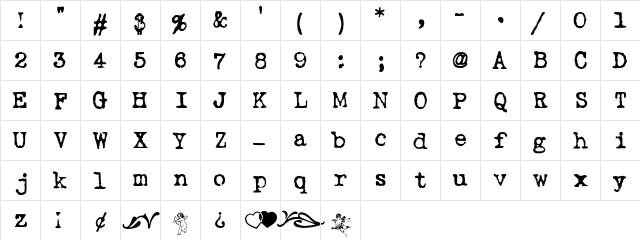
LoveLetterTypewriter Regular
| Foundry | by Blake Haber for Dixie's Delights |
Design Context for LoveLetterTypewriter Typeface
LoveLetterTypewriter uses fixed-width spacing throughout, giving it the structured, systematic character associated with coding environments and technical documentation.